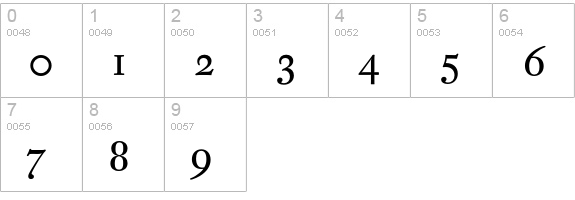
The DTLFleischmannST font is a classic and elegant typeface that exudes sophistication and style. With its clean lines and timeless appeal, this font is perfect for a wide range of design projects, from branding to editorial layouts. Its sleek and refined design makes it a versatile choice for both print and digital applications. What makes the DTLFleischmannST font even more appealing is that it is available for free download at FontsMarket.com. This means that you can easily access this high-quality font without any cost, making it a valuable addition to your font collection. Whether you're a professional designer or a hobbyist looking to elevate your projects, the DTLFleischmannST font is a fantastic choice that won't break the bank. Download it today and see how it can enhance your designs!